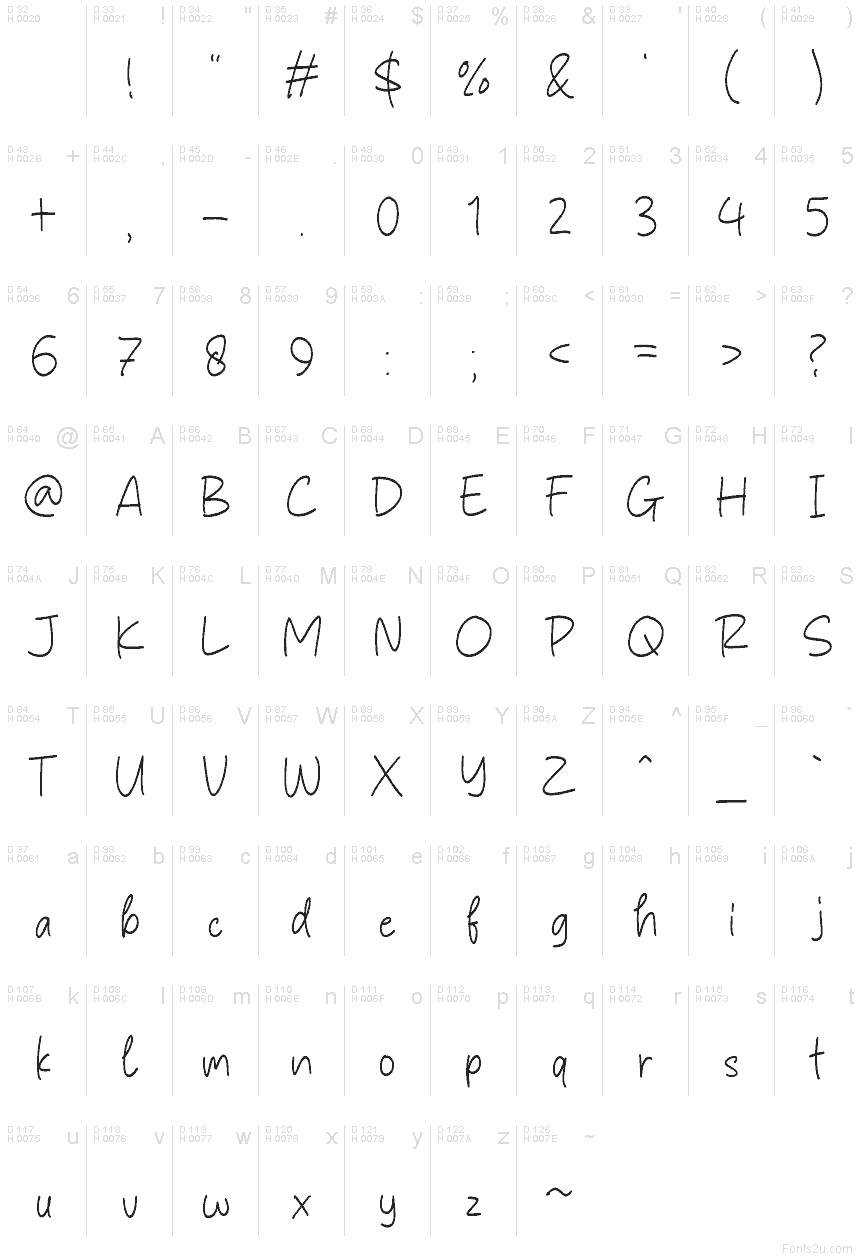
Smallest Files
Smallest Files font by MJType is a free handwritten font that feels like neat notes from a careful friend—casual, but still tidy and easy to read. Its thin, inky strokes and relaxed curves give it a friendly rhythm, while the consistent spacing keeps lines from feeling messy or cramped. You get that personal, pen-on-paper vibe without sacrificing clarity, even in longer phrases and small sizes.
Using Smallest Files, this free font shines on journal-style graphics, planner pages, quote posts, teacher resources, digital stickers, and lightweight branding for blogs or Etsy shops. It works beautifully for labeling, recipe cards, and UI microcopy where you want warmth without chaos. Pair this handwritten typeface with a simple geometric sans for body text, and let Smallest Files handle headings, accents, and short, conversational lines.